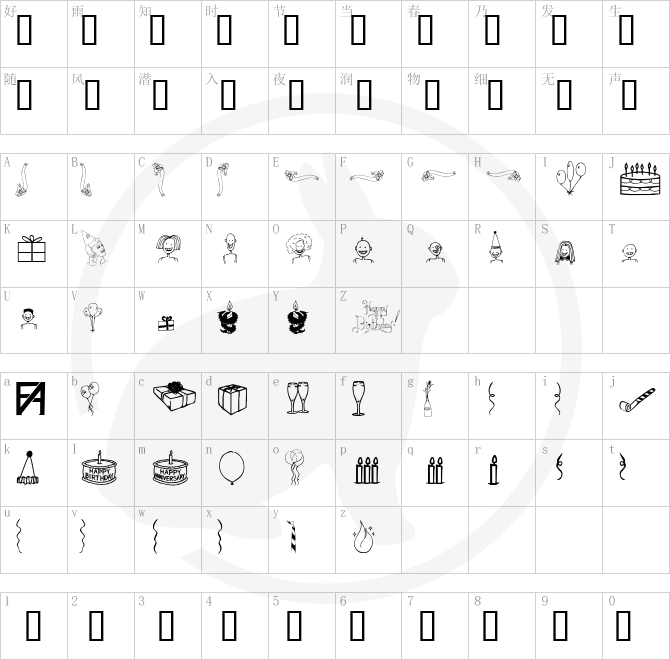
- Font Name:FAD Omega Birthday Bats
FAD-Omega-Birthday-Bats.ttf is a very beautiful artistic font, FAD-Omega-Birthday-Bats.ttf is widely used in the design and printing of various books and pictures,FAD-Omega-Birthday-Bats.ttf has a strong visual impact,FAD-Omega-Birthday-Bats.ttf is a commonly used font in newspapers, magazines and books, and is used in posters, e-commerce Poster design, store design, logo design, font design and other fields.FAD-Omega-Birthday-Bats.